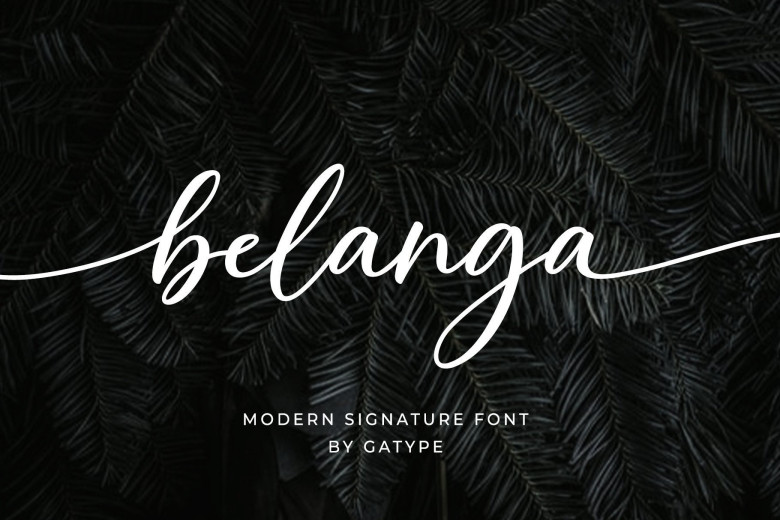
Belanga Font
Belanga is an elegant, soft and fluid handwritten font. With its lovely balance style and diverse range of glyphs and swashes available easily through PUA encoding, Belanga makes an exceptional addition to your designs and will leave an indelible mark! Add it today and be amazed with its results.
Belanga Script Font